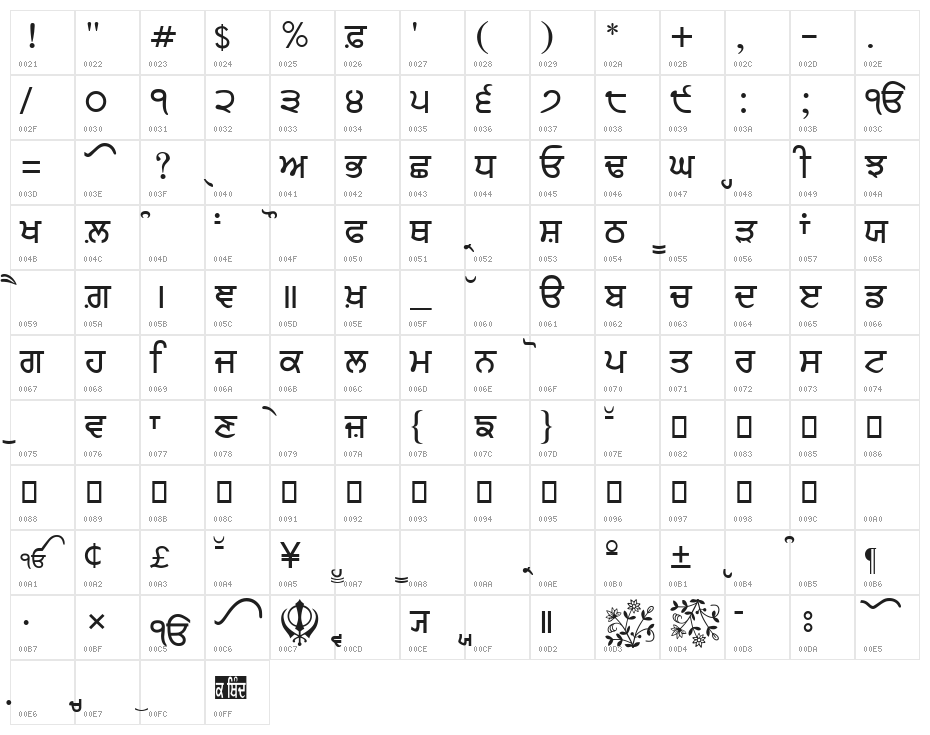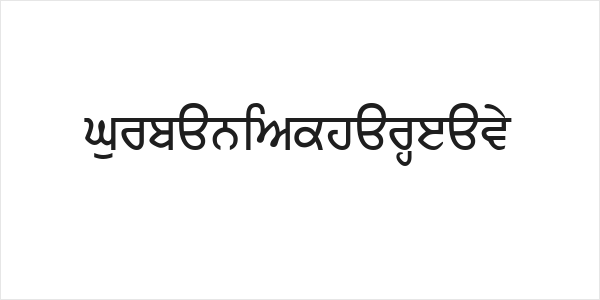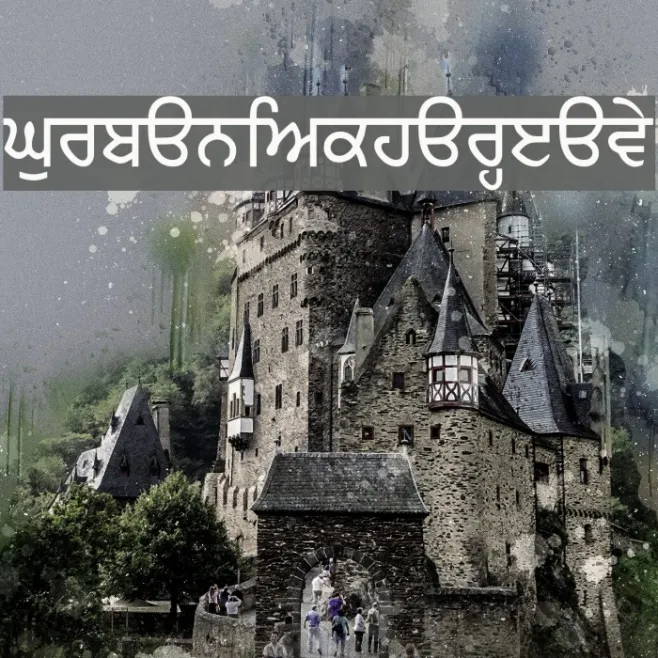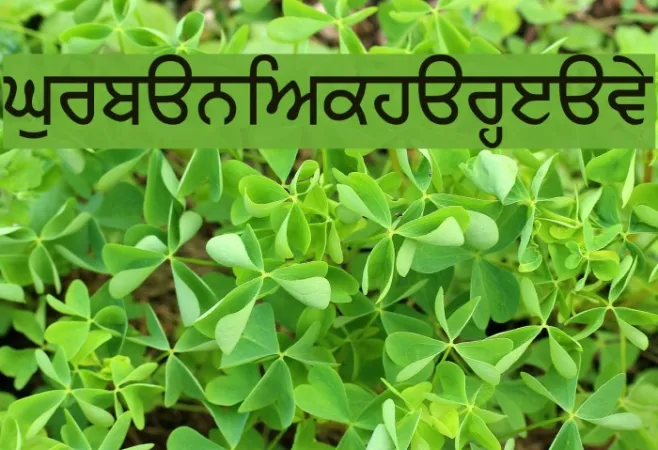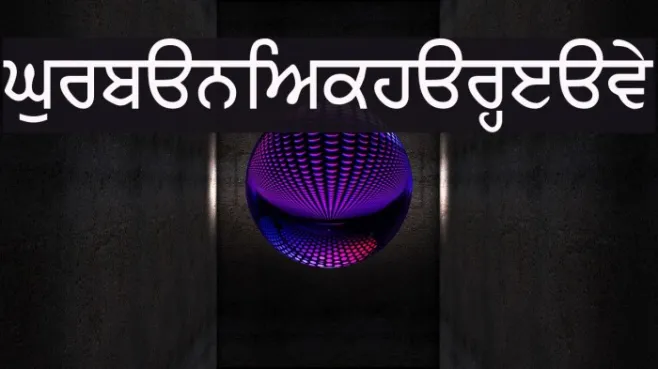
GurbaniAkharHeavy Font
GurbaniAkharHeavy Description
This font features a bold and heavy style, characterized by thick strokes and a strong presence. The characters are well-defined with a modern touch, making it suitable for impactful designs. The script is clear and legible, with a unique flair that adds personality to the text. The font includes a full set of Punjabi Gurmukhi characters, numerals, and a variety of special symbols, ensuring versatility in usage. Its boldness makes it ideal for headlines and titles, where attention is paramount. The design balances traditional elements with contemporary aesthetics, providing a fresh yet familiar look.
| Proposed Projects | Ideal for branding projects, posters, signage, and any design requiring a strong visual impact. |